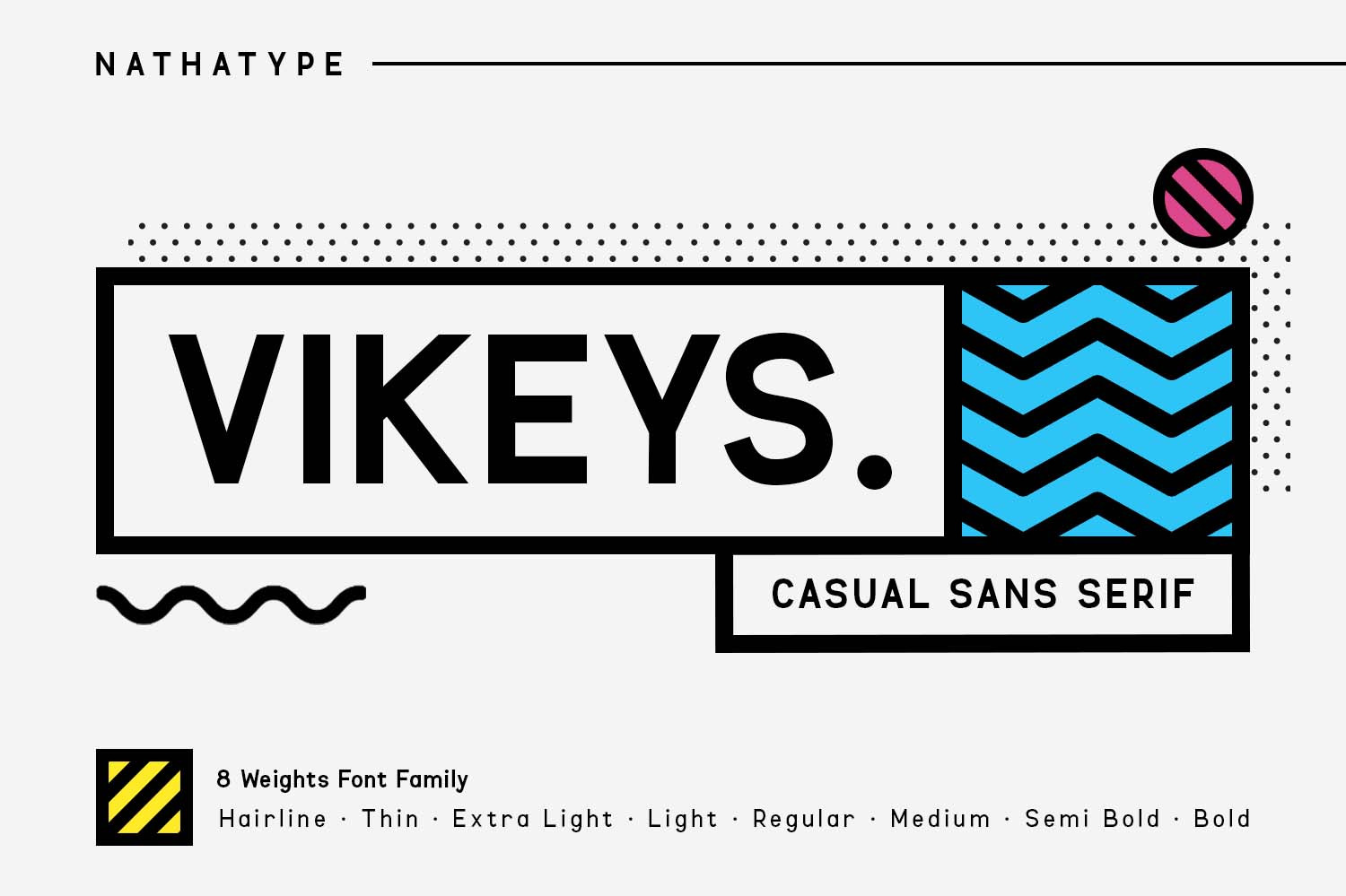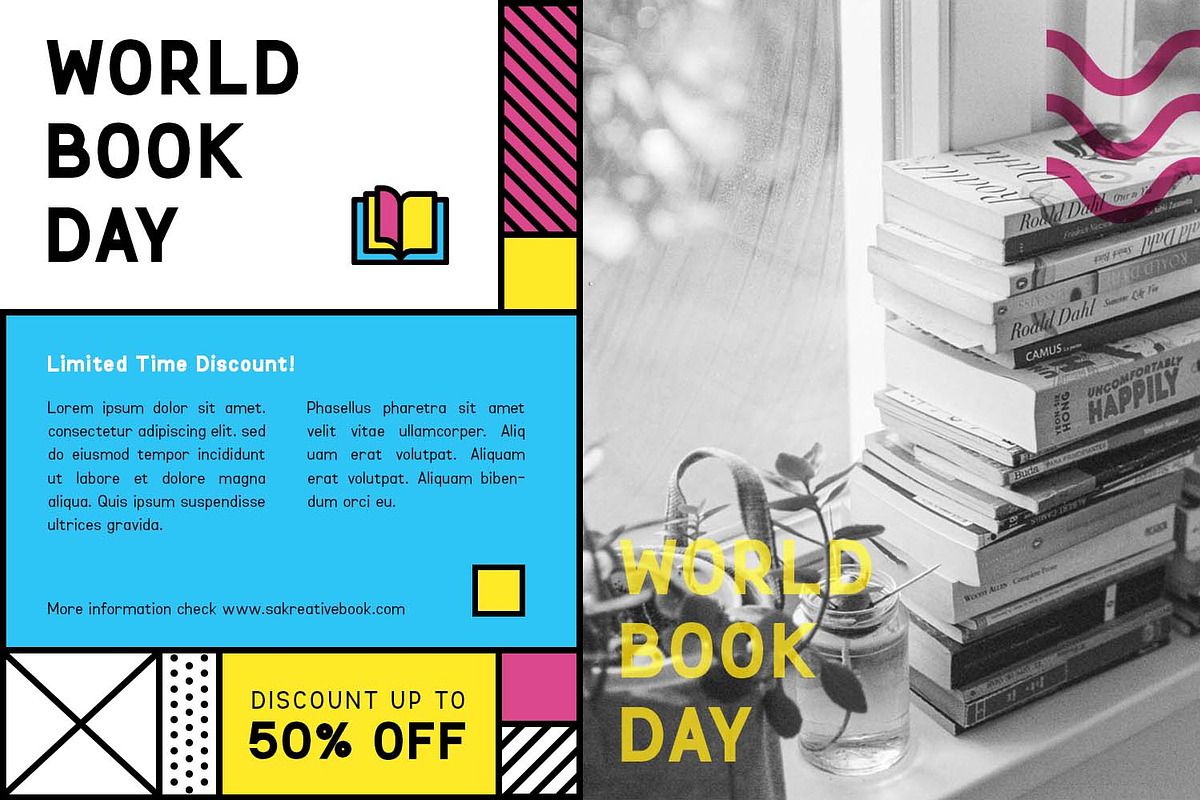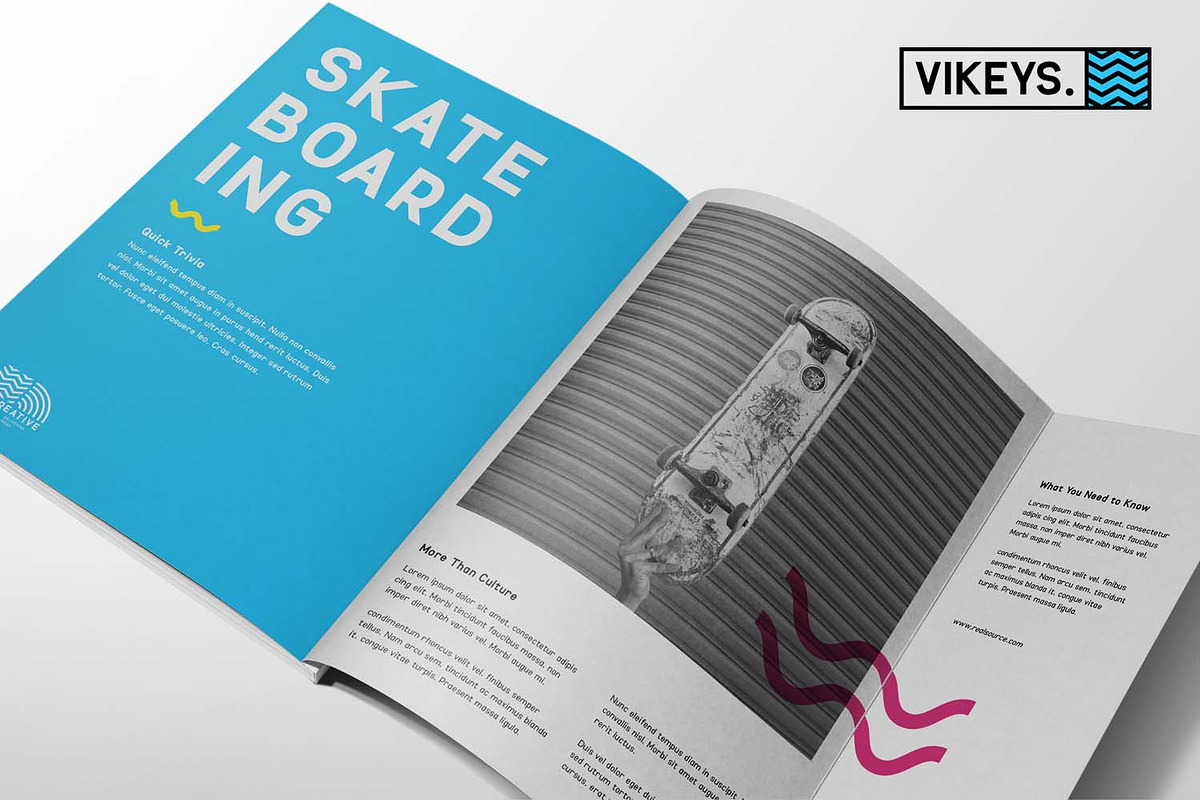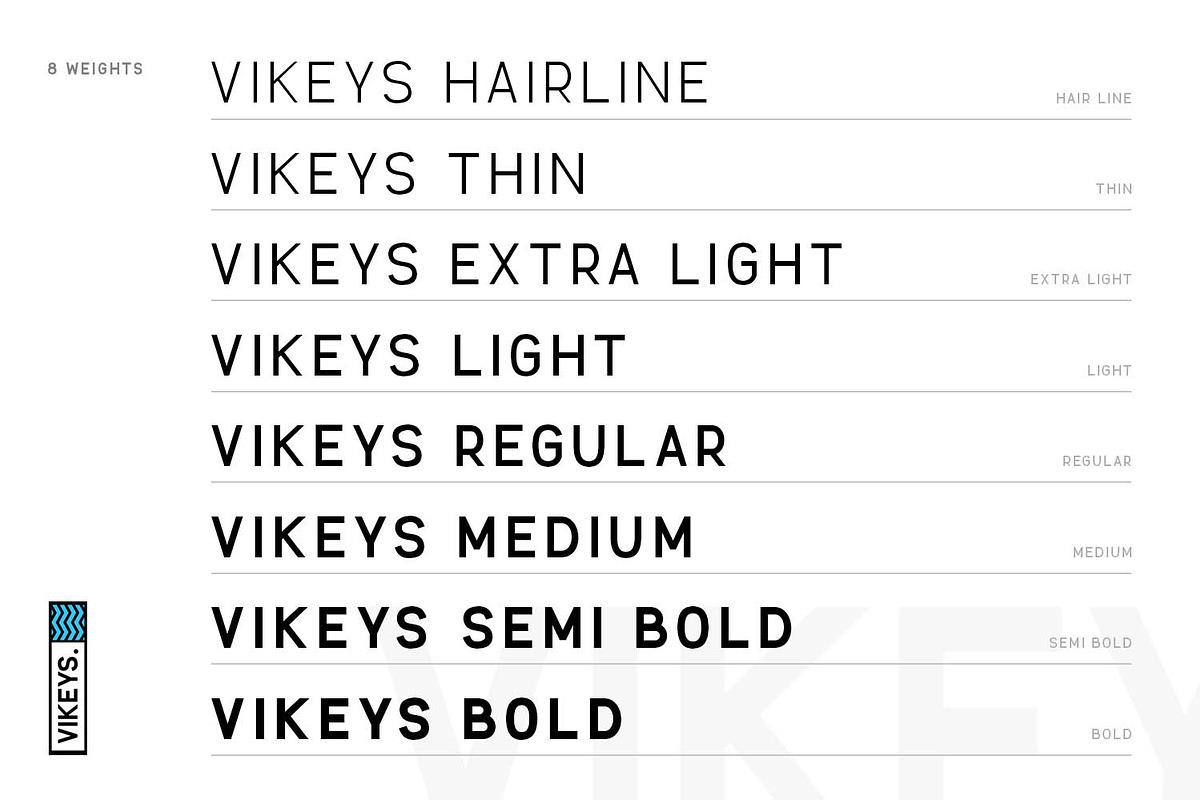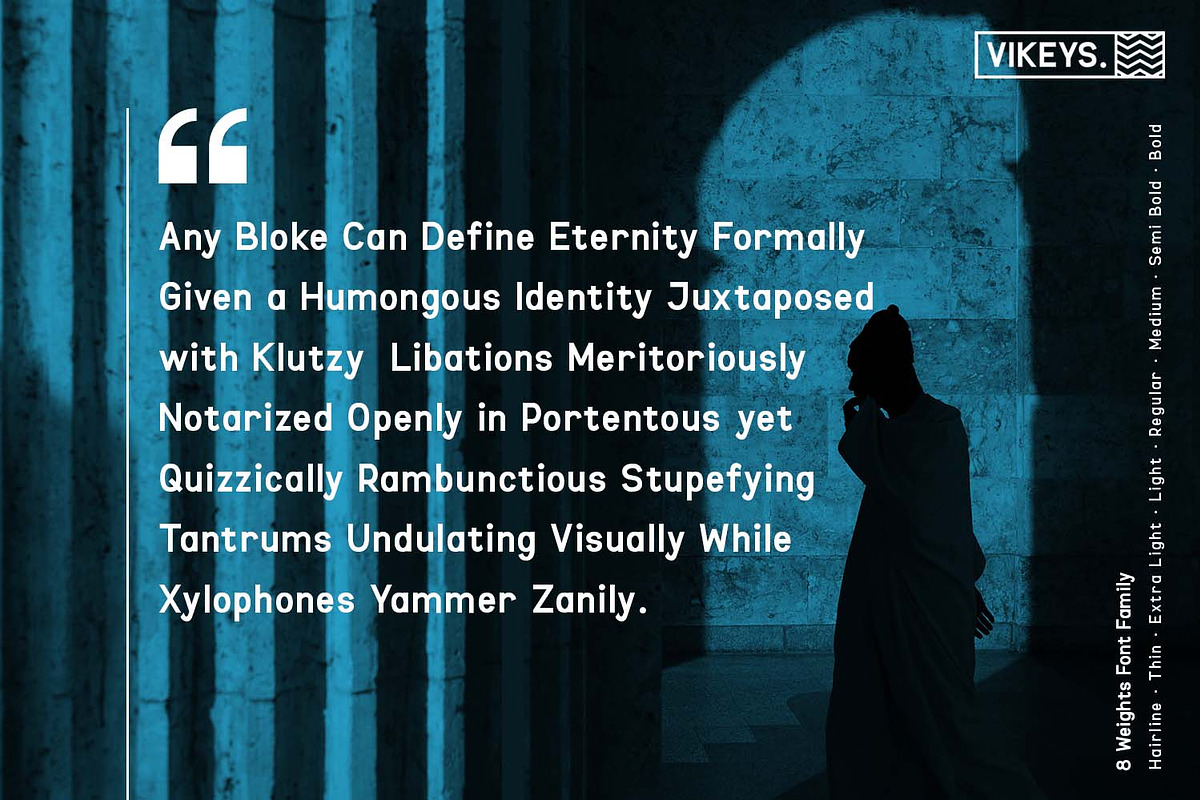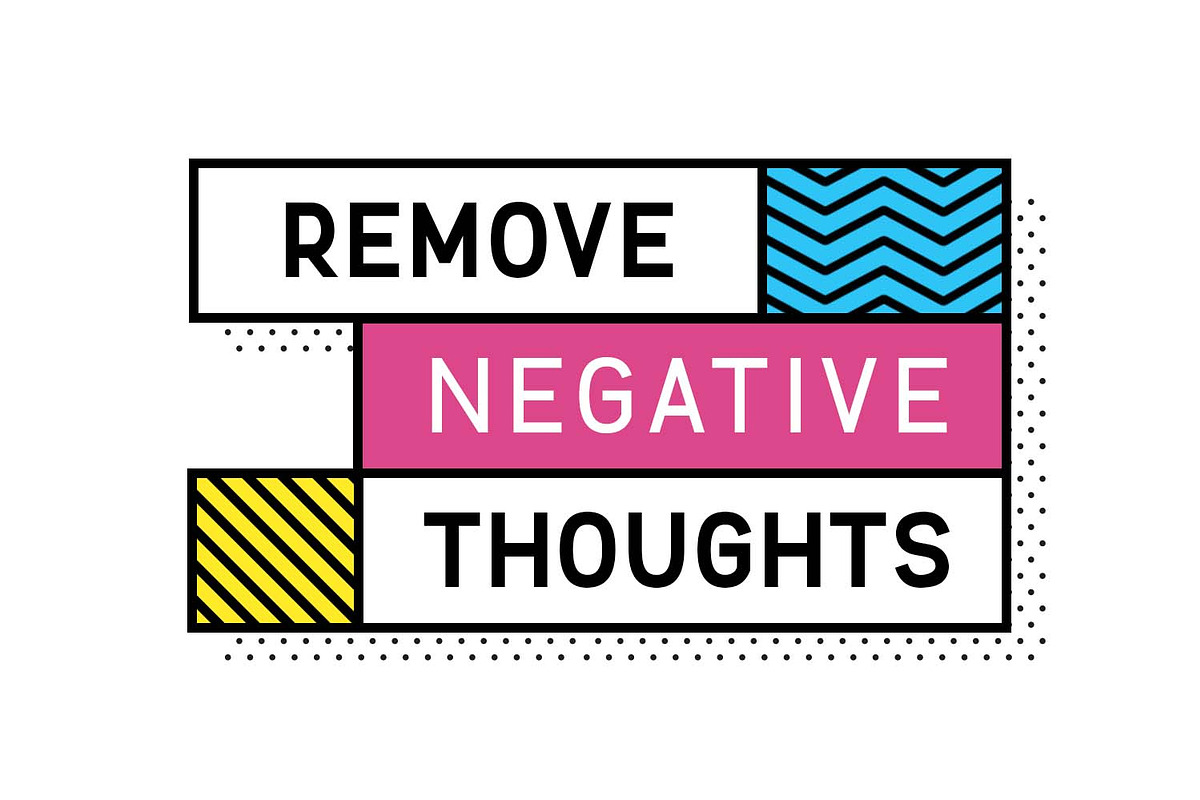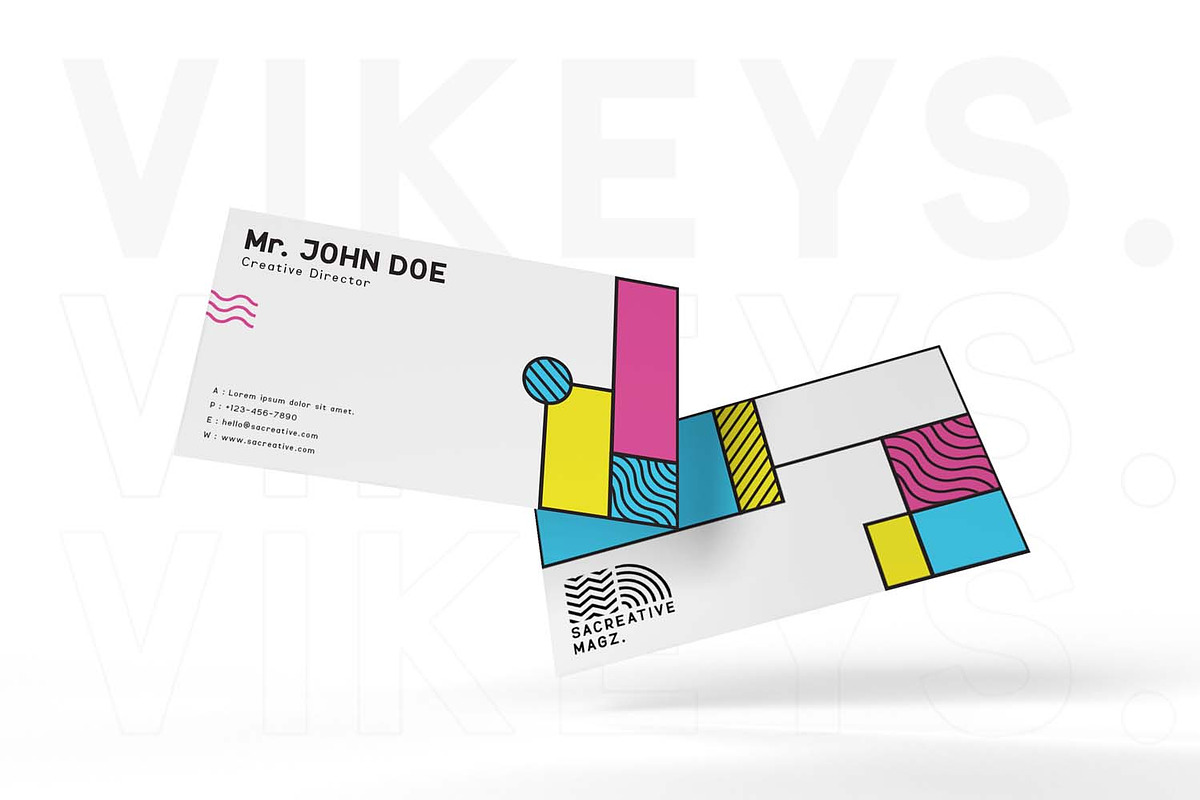
Vikeys-Sans Serif Font Family
Hello, Everyone! Ready to make your branding spark? If you need to create a big, bold logo for your business, work on a poster for an event, or whatever your project may be-then this is the perfect font for you.
Vikeys-A Sans Serif Font Family
If we can give you many options then why not? Vikeys is a package that will makes you very happy. With this family you will get many options to maximize your designs with stylish fonts. Vikeys is made in uppercase and lowercase that easy on the eyes and nice to look while it’s also easy to read. This font designed to bring your branding to life and add a touch of modernity, fun and style. Perfect to create amazing headings, logos, menus, social media graphics, and many more.